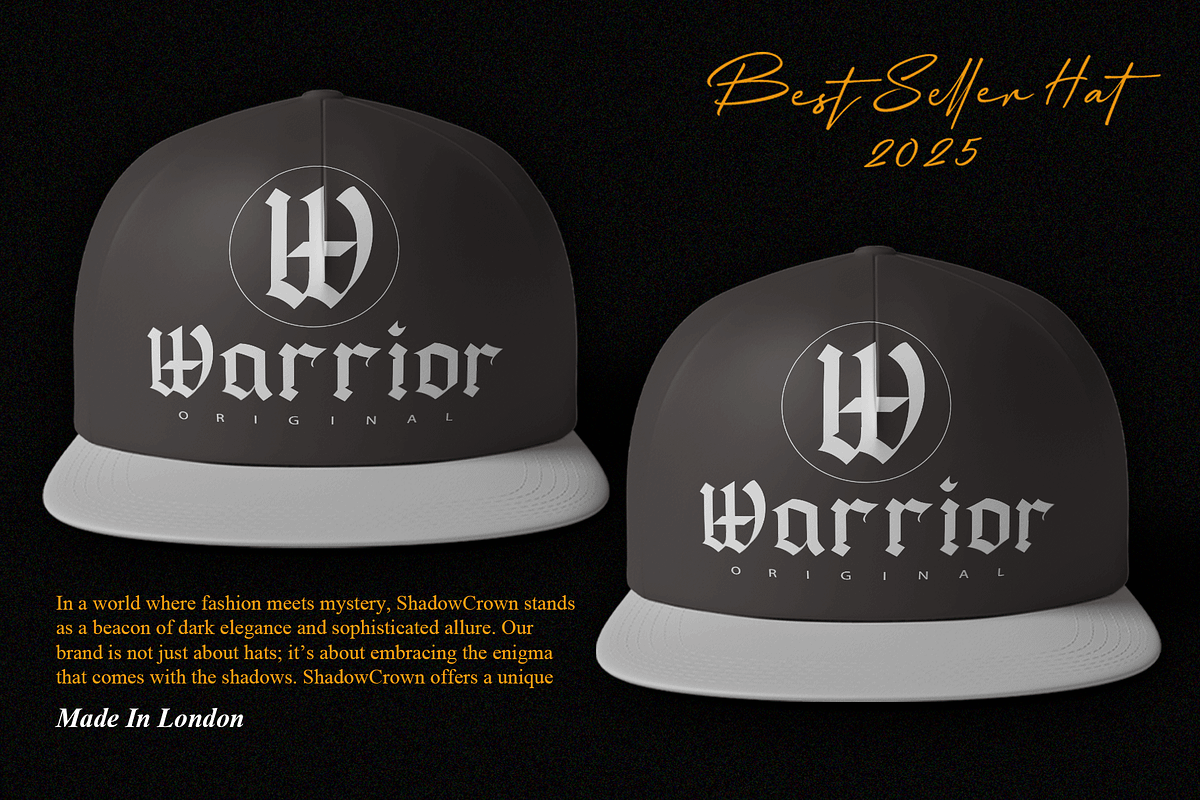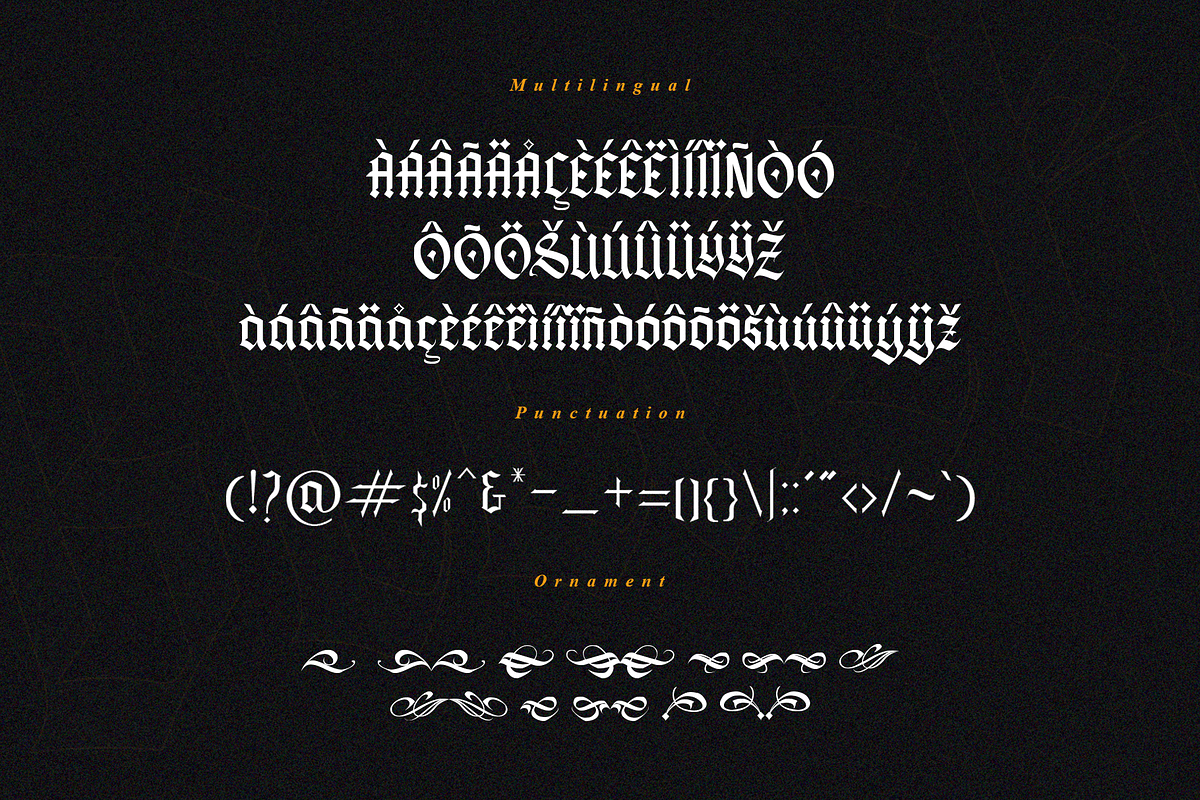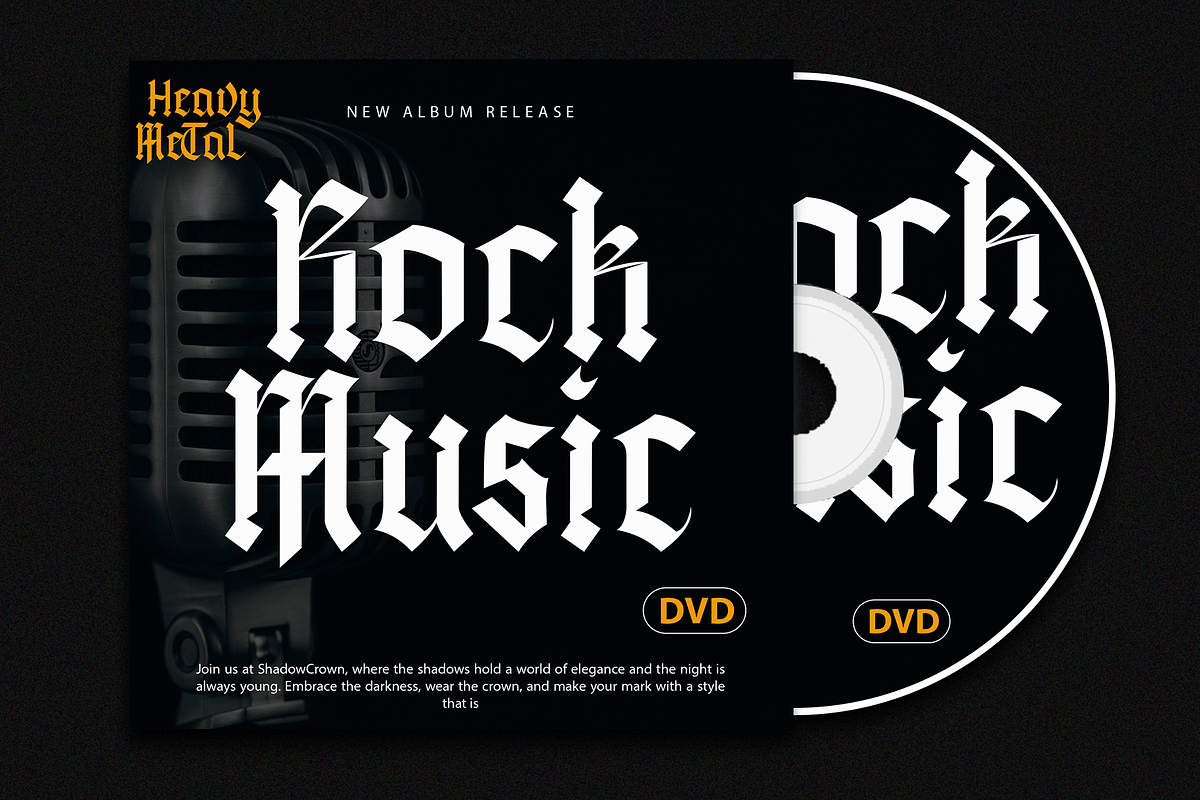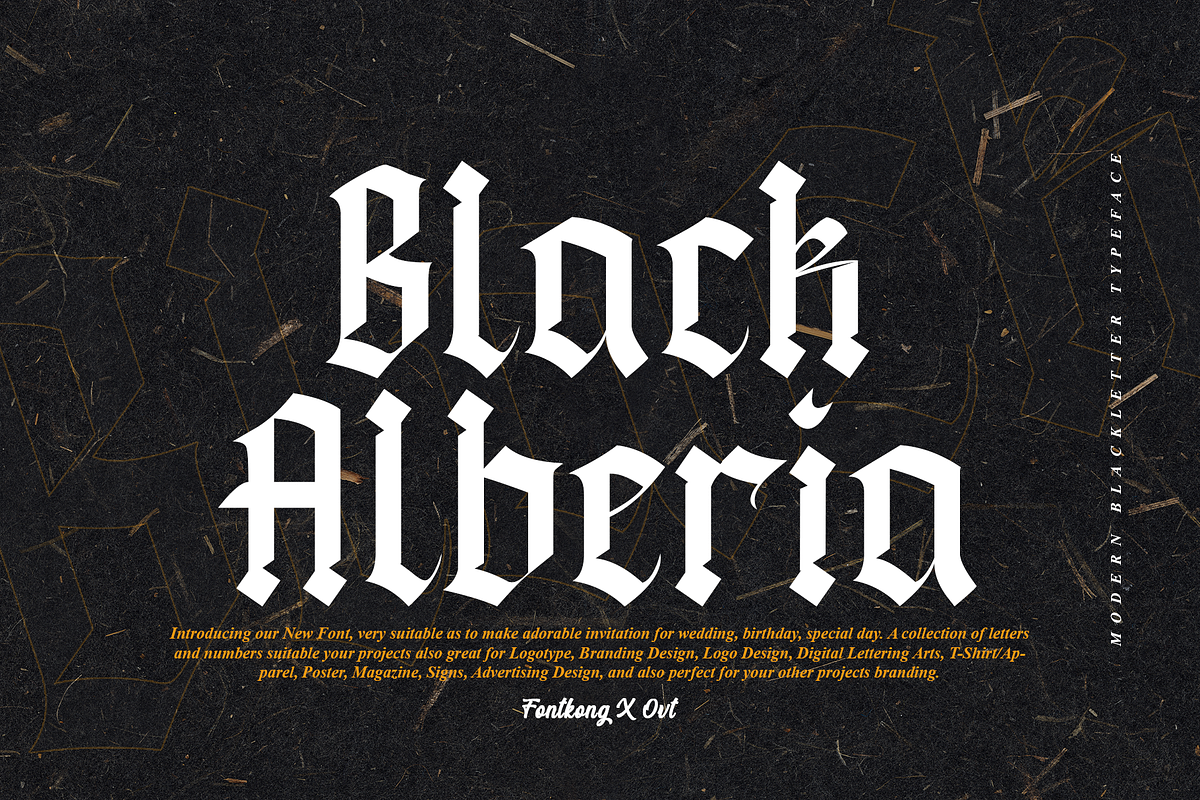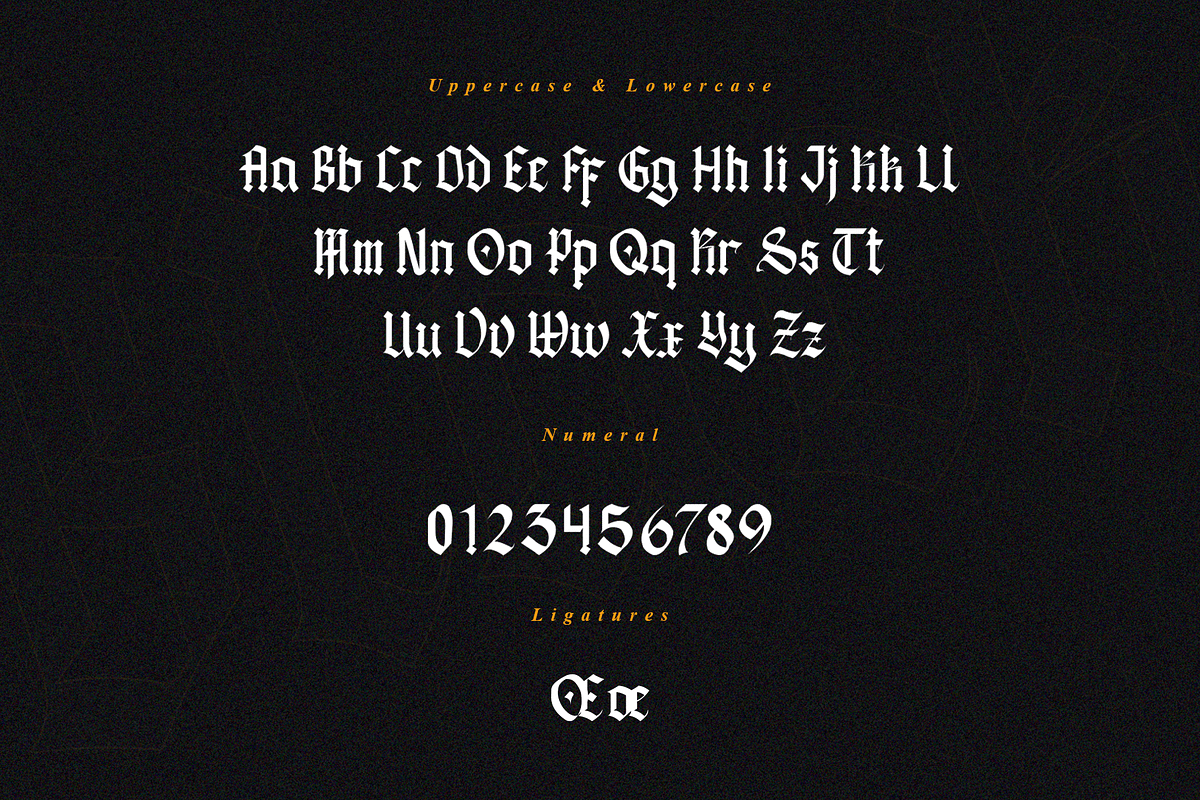
Black Alberia - Modern Blackletter
Black Alberia - Modern Blackletter Typeface
Introducing "Black Alberia," a modern blackletter typeface that combines the bold heritage of traditional blackletter with a contemporary twist. Perfect for graphic designers, typographers, and creatives seeking a distinctive and powerful aesthetic, Black Alberia offers a unique blend of historical charm and modern design.
Ideal for branding, posters, album covers, editorial design, and packaging, Black Alberia’s strong and intricate characters provide a commanding visual impact. Each letter is meticulously crafted to balance the ornate nature of blackletter with modern readability, ensuring your designs stand out with a bold and sophisticated style.
The "Black Alberia" font includes a complete set of uppercase and lowercase letters, numbers, punctuation marks, and special characters. This comprehensive set ensures seamless integration into various design projects, from luxurious branding to impactful editorial layouts.
Capture attention with Black Alberia, the modern blackletter typeface that brings bold tradition and contemporary style to every project.